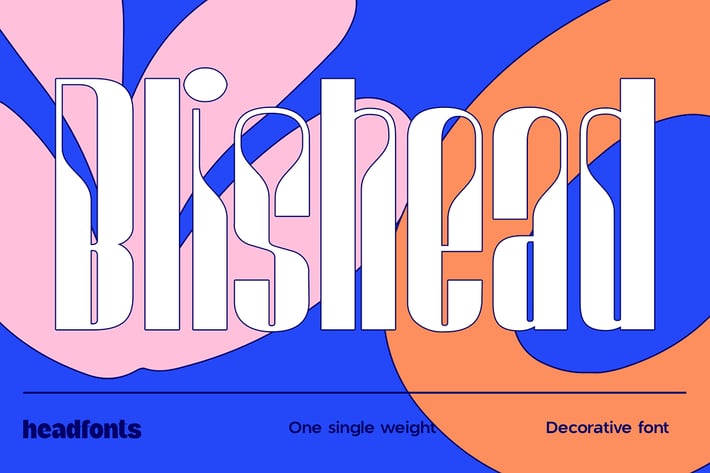
Blishead Display Font
BLISHEAD is a brand new display font with strong decorative elements and rounded shapes. This peculiar font has a creative approach to the design of letters, with its condensed style and rounded letterforms. Blishead has an urban, modern feel being perfect for big headlines or as a stand-alone graphic element. This eye-catching font has a standard Latin script support with numerals, uppercase and, lowercase alphabet. With its strong visual impact, Blishead is perfect for titles, poster design, or any design project that needs an out-of-the-box, artsy font.